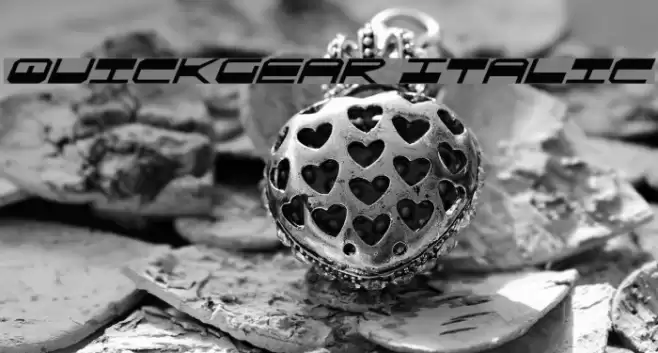
QuickGear Italic Font
QuickGear Italic Description
This font features a dynamic and futuristic design, characterized by sharp angles and a forward-leaning italic style. The uppercase and lowercase letters maintain a consistent geometric structure, with a distinct slant that adds a sense of motion and speed. The numerals and special characters follow the same angular theme, ensuring uniformity across all glyphs. The font's bold strokes and unique character shapes make it stand out, suitable for projects that require a modern and edgy appearance.
| Proposed Projects | Ideal for technology branding, video game titles, automotive advertisements, and sci-fi themed designs. |